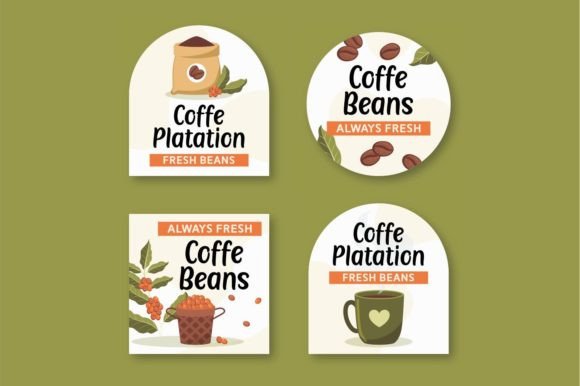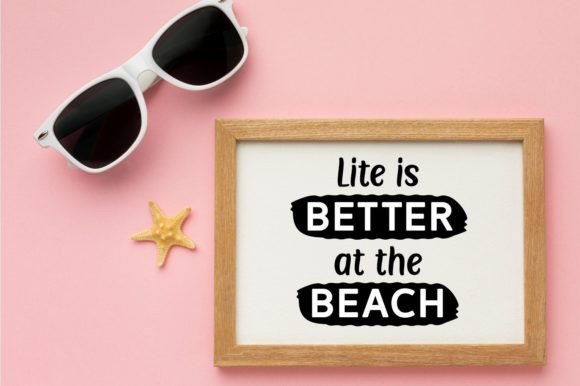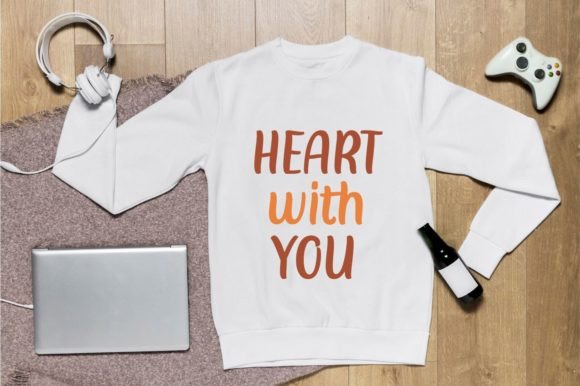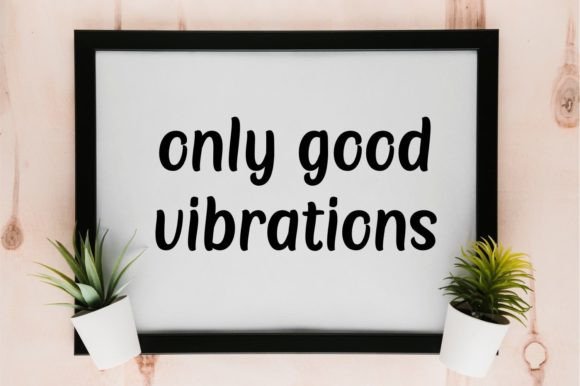
The Perfect Match for Your Creative Projects
Have you ever stared at a blank page, waiting for inspiration to strike? You know, that magical moment when ideas start flowing, and your creative juices are in full swing. For many designers, this moment is what makes all the late nights and early mornings worth it. And when that spark hits, you want a font that can keep up with your imagination.
Enter Better Both Font, a sweet and casual handwritten font that’s perfect for crafting, digital design, presentations, or making greeting cards. Whether you’re a seasoned pro or a hobbyist, this font has the potential to become your favorite go-to font, no matter the occasion. With its versatility and charm, Better Both Font is a valuable addition to any designer’s toolkit.
Better Both Font Key Features
- Multi-Lingual Support: This font supports multiple languages, including English, Spanish, French, German, and many more, making it a great choice for global applications.
- Unique Characteristics: Better Both Font features a unique blend of modern and classic design elements, creating a distinctive and professional look that sets it apart from other fonts.
- Scalability: The font is highly scalable, meaning it looks great at various font sizes, from small captions to large headings, without losing its clarity or readability.
Better Both Font Review
As a designer, I was excited to dive into the world of “Better Both Font” and see if it lived up to its name. Here’s my honest review.
- Unique blend of modern and classic styles – it’s a refreshing change from the usual sans-serif fonts.
- Perfect for branding and logos, as it’s easily recognizable and memorable.
- Excellent legibility, even at smaller font sizes.
- Works well in both digital and print mediums.
- Not ideal for body text, as it can be a bit too ornate and distracting.
- Not as versatile as some other fonts, so be prepared to use it in specific contexts.
Overall, I think “Better Both Font” is a great choice for specific design projects, but it’s not a one-size-fits-all solution. With its unique style and excellent legibility, it’s a great addition to any designer’s toolkit. Just be mindful of its limitations and use it in contexts where it shines.
For best results, use Better Both Font for titles, headings, and short paragraphs. It’s ideal for creating a clean and modern aesthetic. Be mindful of font size and line spacing to ensure readability.
Yes, Better Both Font is a highly customizable font. You can adjust font weights, styles, and sizes to suit your design needs. Additionally, you can use font features such as ligatures, contextual alternates, and swashes to add unique touches to your designs. However, please note that some customizations may require additional technical expertise or software.